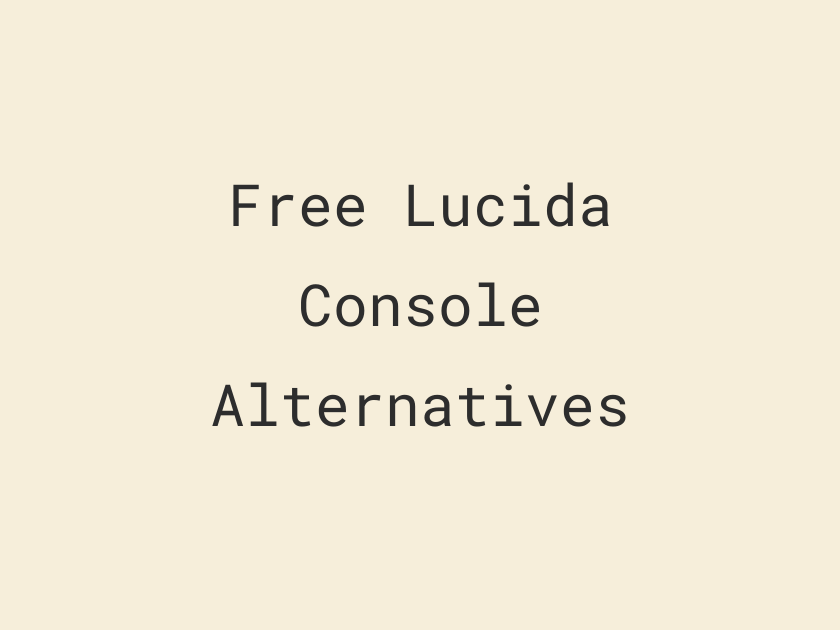
15 Best Free Fonts Alternatives to Lucida Console
Lucida Console has been a fixture of Windows terminals, code editors, and monospaced documents for decades, prized for its even letterforms and generous spacing at small sizes. It is not a Google Fonts family, so anyone building for the web or working outside Windows needs a free substitute that keeps that same clarity on screen. The monospace category on Google Fonts has matured considerably, and several families now match or exceed Lucida Console for coding, terminal emulators, tabular data, and technical writing.
1. Roboto Mono
Roboto Mono is the safest, most versatile swap for Lucida Console if you want something that feels contemporary without drawing attention to itself. Its proportions are slightly narrower and its curves softer, which makes long stretches of code or logs easier on the eyes across many hours of reading.
2. Source Code Pro
Source Code Pro
Built by Adobe specifically for coding environments, Source Code Pro was engineered with the same priorities that made Lucida Console popular: unambiguous digits, a clear distinction between similar characters, and consistent width. It renders cleanly in editors like VS Code and Sublime Text, and it holds up well when set small in dense terminal windows.
3. JetBrains Mono
JetBrains Mono was designed by developers who spend all day staring at code, and it shows. The x-height is generous, the letter shapes are unusually open, and ligatures are available for those who want arrows and comparison operators to merge visually. It is arguably the most purpose-built free alternative on this list for anyone coding rather than simply displaying monospaced text.
4. IBM Plex Mono
There is a quiet technical confidence to IBM Plex Mono that suits system dashboards, documentation sites, and developer portfolios equally well. It pairs naturally with IBM Plex Sans and IBM Plex Serif if you need a full typographic system built around one release.
5. Space Mono
Space Mono trades neutrality for personality, with quirky, slightly retro letterforms that recall vintage typewriters and early computer terminals. It works best in headlines, badges, and short code snippets rather than long-form reading, where its idiosyncrasies can slow the eye.
6. Inconsolata
Inconsolata
One of the earliest coding fonts to gain a devoted following, Inconsolata remains a go-to choice for developers who want something narrower and more condensed than Lucida Console without losing legibility. It is a reliable pick for line-numbered code blocks where horizontal space is tight.
7. Fira Code
Fira Code
Fira Code is the font most associated with programming ligatures, automatically combining character pairs like `=>` and `!=` into single glyphs. Designers who find that feature distracting can simply disable it and still get a clean, highly legible monospace base built on the Fira family.
8. Cousine
Cousine was created as a metric-compatible alternative to Courier New, and its upright, no-nonsense structure makes it feel closest in spirit to the plain utilitarian character of Lucida Console. It is an unfussy choice for spreadsheets, invoices, and anywhere tabular alignment matters more than typographic flair.
9. PT Mono
PT Mono
Developed as part of the PT font system with strong Cyrillic support, PT Mono is worth knowing about if your project needs multilingual coverage beyond Latin characters. Its sturdy, slightly heavier strokes hold up well in printed technical documentation.
10. Ubuntu Mono
Ubuntu Mono
Ubuntu Mono carries the same humanist warmth as the rest of the Ubuntu type family, giving it a friendlier tone than most terminal fonts. It suits developer blogs and open-source project sites where the brand association with Linux and open computing feels appropriate.
11. Courier Prime
Courier Prime
Courier Prime is a cleaned-up, more refined take on classic Courier, and while it is best known in screenwriting circles, its typewriter heritage makes it a charming option for anyone who wants a monospace font with visible personality rather than pure technical neutrality. It is less suited to dense code, where its wider spacing takes up more room than Lucida Console.
12. Red Hat Mono
If you need a font with more character for branding or headlines, Space Mono or Courier Prime add personality that pure coding fonts intentionally avoid.
When pairing a monospace font with body text, choose a sans-serif from the same type family where one exists, such as IBM Plex Sans or Overpass, to keep the overall system cohesive.
Any of these free Google Fonts options can step in for Lucida Console without asking you to compromise on legibility, whether the goal is a terminal interface, a documentation site, or a portfolio built around code.